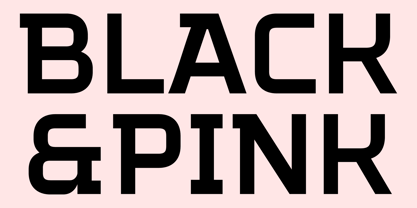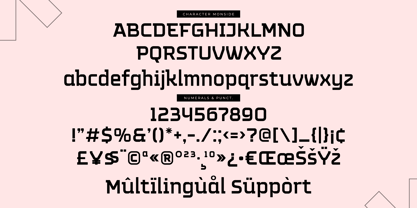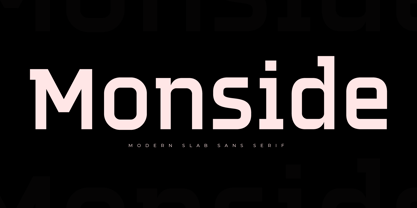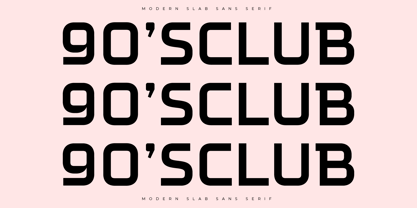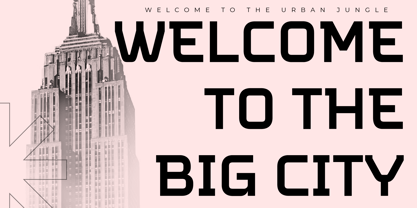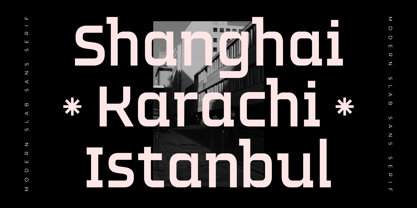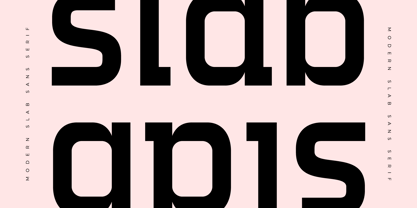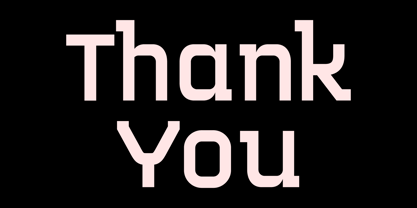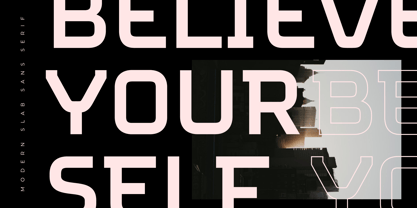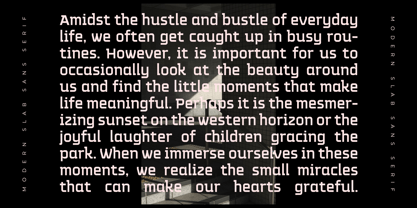
Monside
The Monside Font Family was designed by Edy Subiyanto and published by Jaruka Creative. Monside contains 1 styles. More about this family
Monside: The Modern Architectural Slab Sans Serif
Build a bold foundation for your next project with Monside, a Modern Slab Sans Serif font designed for impact and structural elegance. Balancing the strength of a slab with the clean geometry of a sans serif, Monside is the versatile choice for contemporary branding and high-visibility design.
Command the Urban Jungle
Monside is engineered to dominate metropolitan aesthetics; it perfectly captures a "Big City" energy, making it an ideal choice for:
• Hero Headlines: Create monumental headers that stand tall against any background.
• Global Identity: Bring a sophisticated edge to international cityscapes, from Shanghai to Istanbul.
• Dynamic Layouts: Whether featured in the retro-cool style of a "90's Club" or modern lifestyle editorial, Monside remains unmistakably bold.
Precision in Every Detail
Beyond its striking appearance, Monside offers the technical depth required for professional production:
• Complete Character Set: the Monside family includes full uppercase and lowercase alphabets alongside essential numerals and symbols.
• Multilingual Support: Communicate without borders thanks to extensive support for diverse languages and accents.
• Readability & Flow: From short, punchy phrases like "Black & Pink" to long-form body text, Monside maintains excellent legibility.
Versatility for the Modern Creator
Monside is more than just a typeface; it is a design partner that adapts to your vision. It encourages you to "Believe in Yourself" by providing a reliable, aesthetic framework for everything from professional invoices to creative digital planners.
Monside displays its primary form, demonstrate its ability to close any presentation with a touch of modern class.